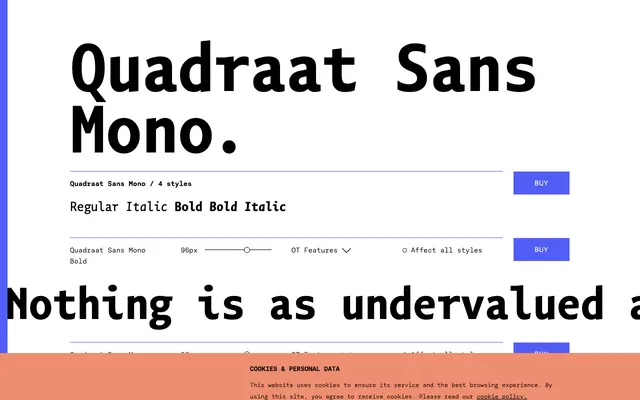
Quadraat Sans Mono
TYPE BY · Fred Smeijers · 1996
A monospaced variant of Fred Smeijers' Quadraat Sans, remastered in 2019, bringing humanist warmth to a genre that typically favours the clinical.
Quadraat Sans Mono carries the characterful, Renaissance-inflected outlines of the broader Quadraat superfamily into a fixed-width format. The family comes in Regular and Bold, each with a matching italic, and supports an extensive range of Western, Central and Eastern European Latin languages. Remastered and re-hinted in 2019, it suits coding environments and editorial contexts where a monospaced face with personality is preferred over a neutral default.
A monospaced variant of the Quadraat Sans family, which draws from Renaissance letterform traditions and humanist construction; the fixed-width format places it firmly in the mono category.